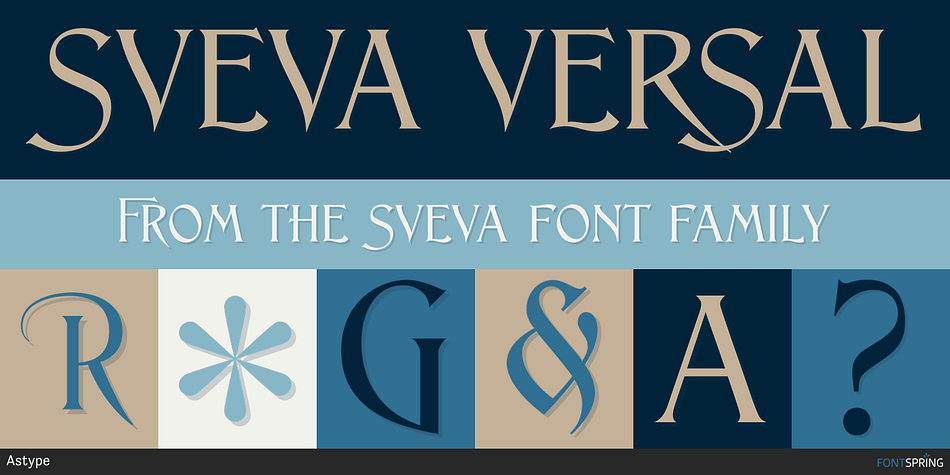
Sveva Versal
Designed by Andreas Seidel, Sveva is an art nouveau font family. This typeface has three styles and was published by Astype.
Sveva Versal is a light swinging art nouveau caps only headliner, with swash like alternates and lots of special combinations.
New Sveva v2 fonts styles were added in 2022.